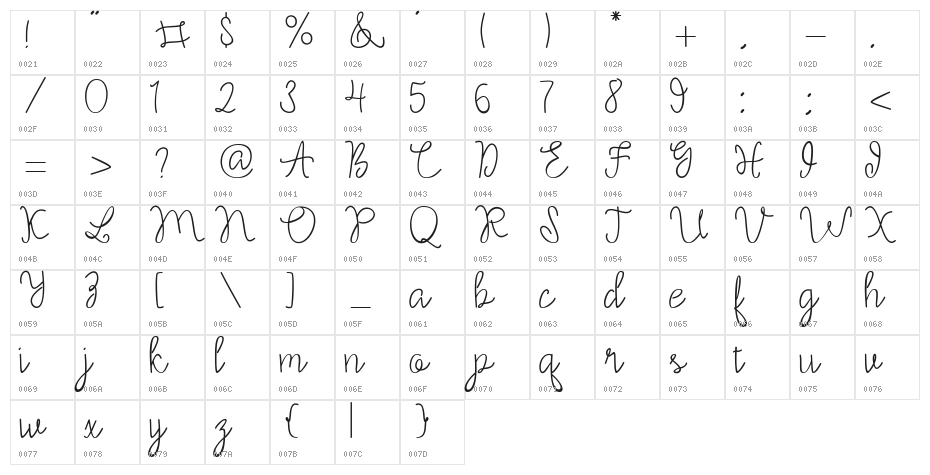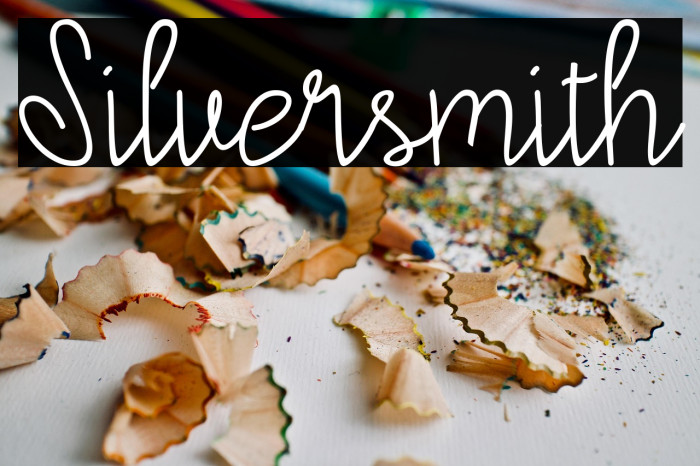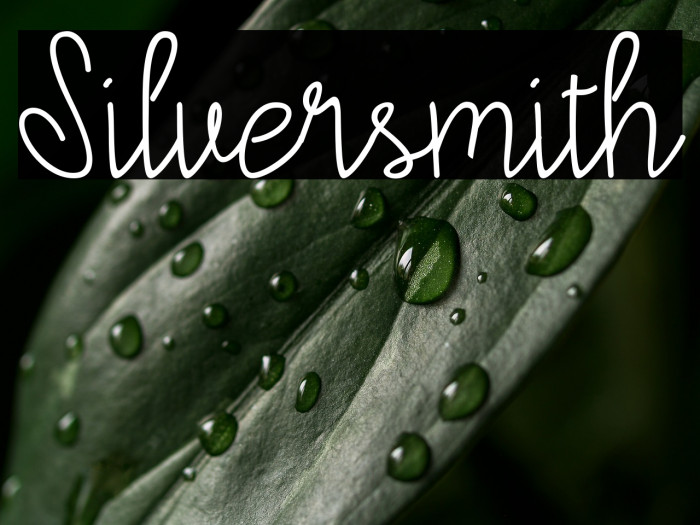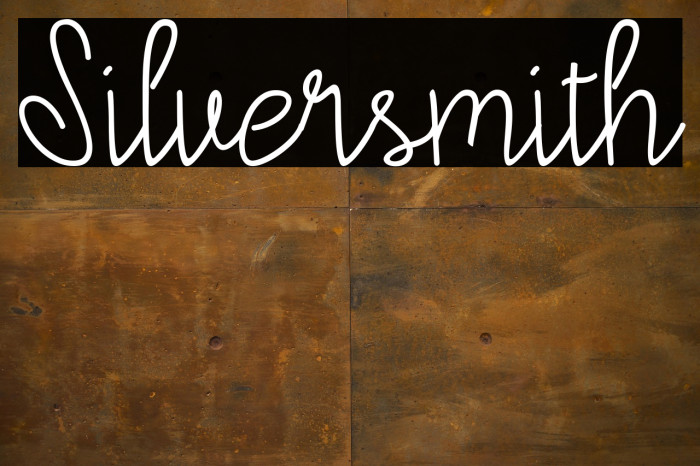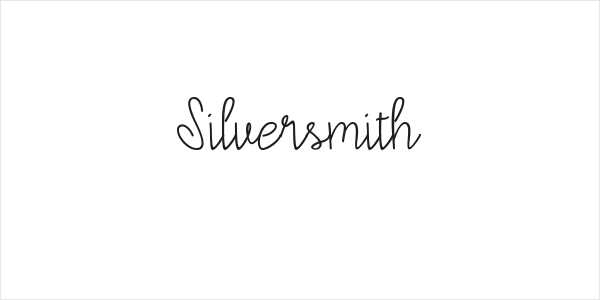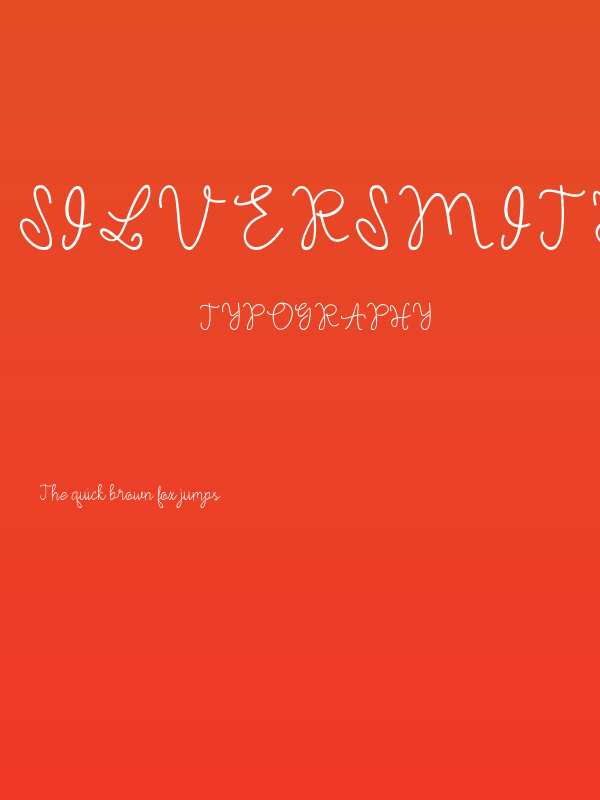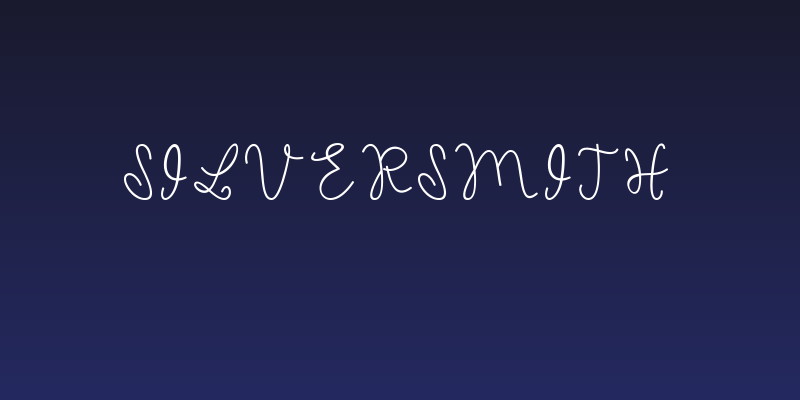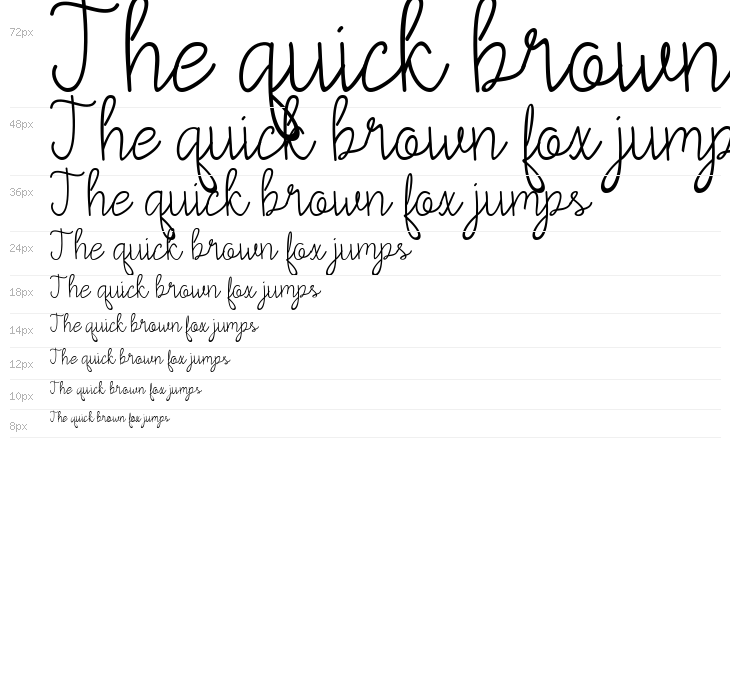
Silversmith Font
Silversmith Description
A flowing, cursive script font with a handwritten style, featuring smooth, connected letters and a casual elegance.